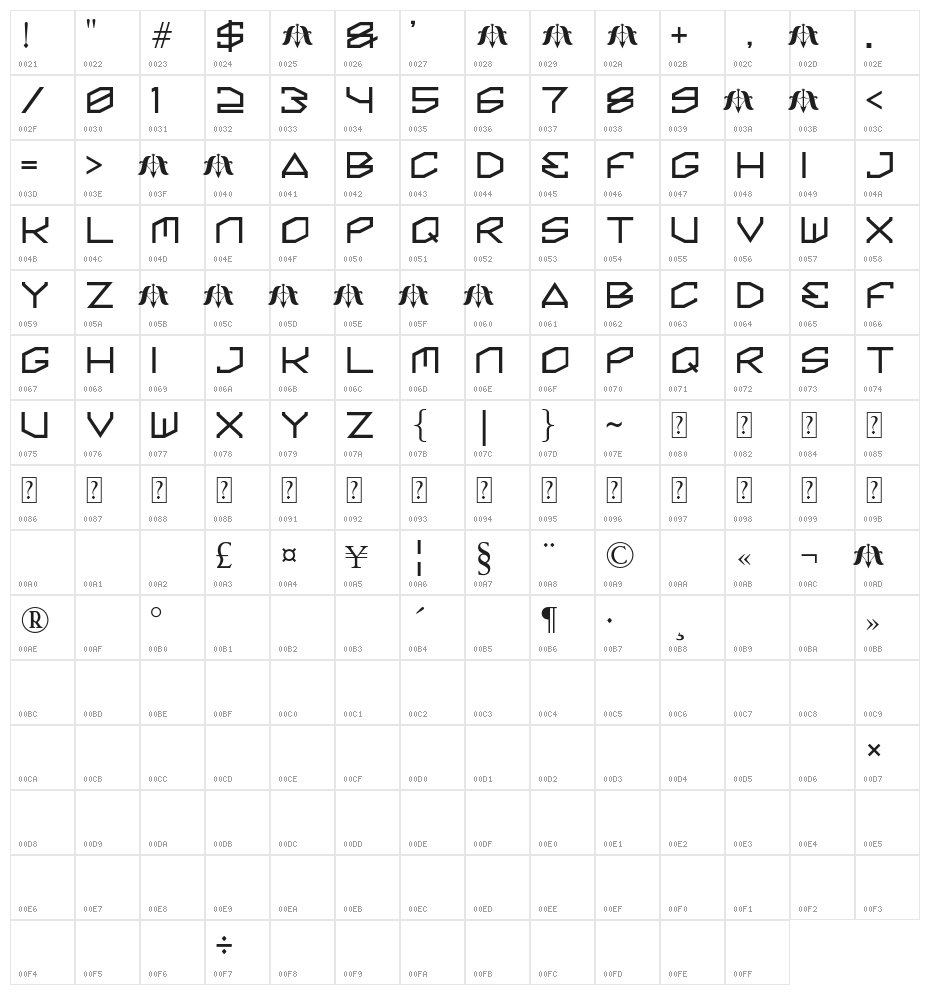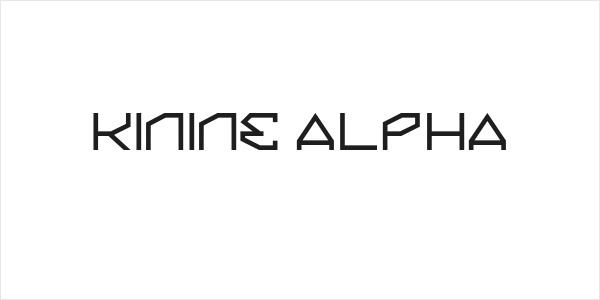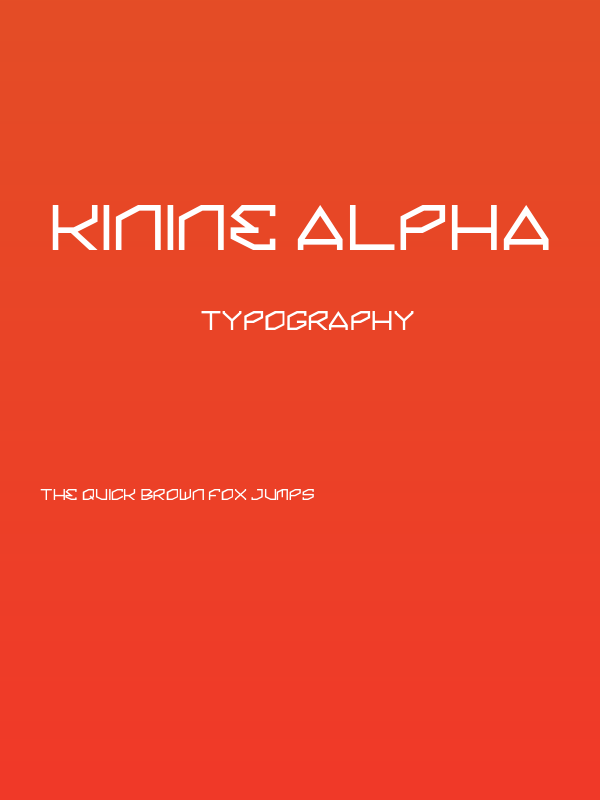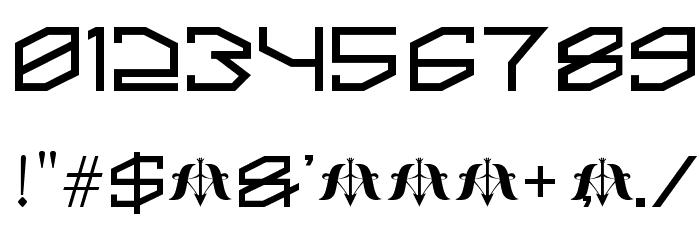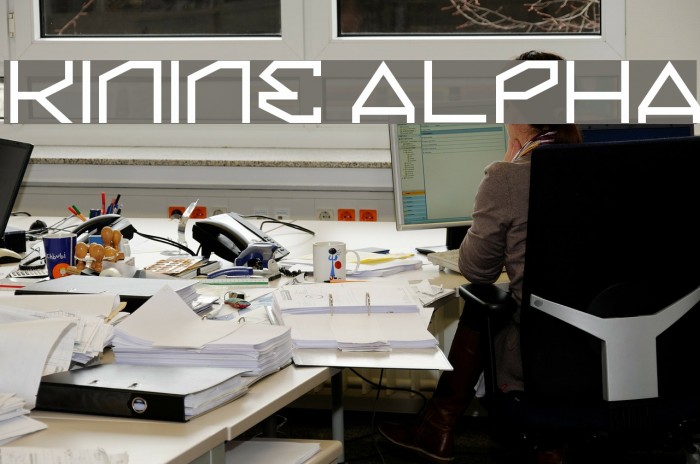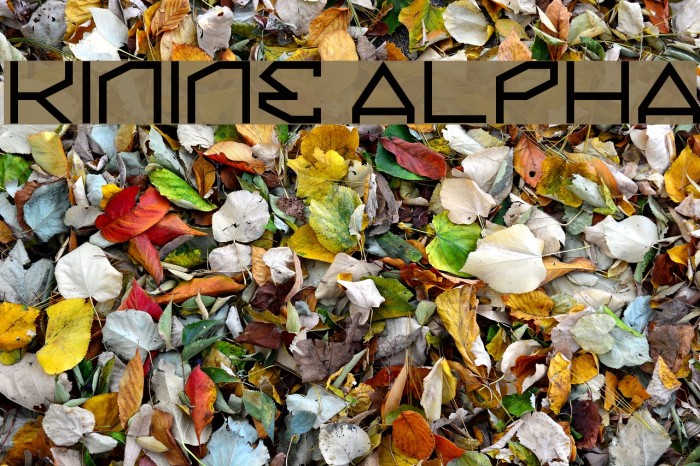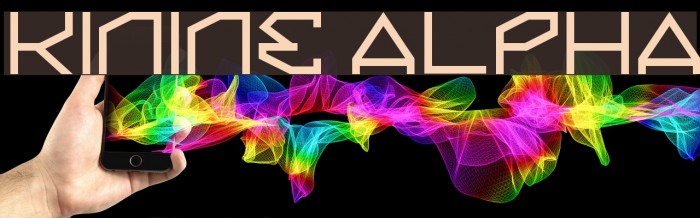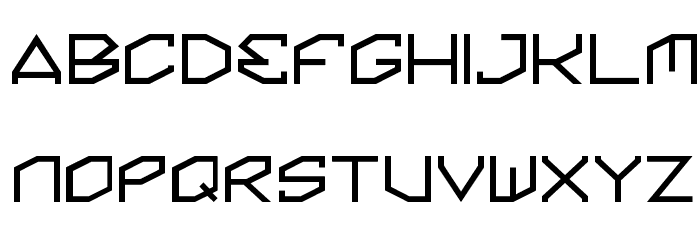
Kinine Alpha Font
Kinine Alpha Description
This font features a geometric and angular design, characterized by sharp edges and a futuristic aesthetic. The uppercase and lowercase letters maintain a consistent style, with a distinct emphasis on symmetry and uniformity. The numerals follow the same design principles, offering a cohesive look across all characters. Special characters are creatively integrated, adding a unique flair to the overall appearance. The font's bold presence makes it suitable for attention-grabbing designs, while its structured form ensures readability.
KININE-ALPHA UPPERCASE
KININE-ALPHA LOWERCASE
KININE-ALPHA OTHER CHARS
| Proposed Projects | Ideal for sci-fi themed projects, technology branding, video game titles, and modern posters. |